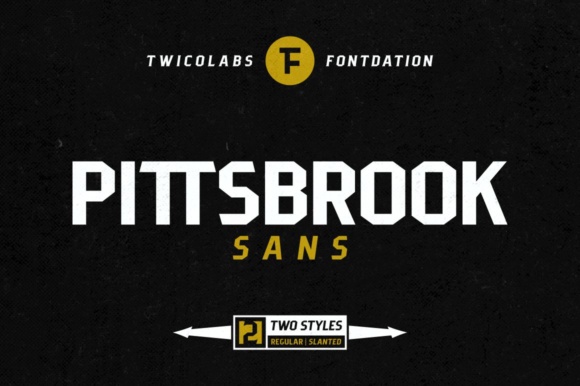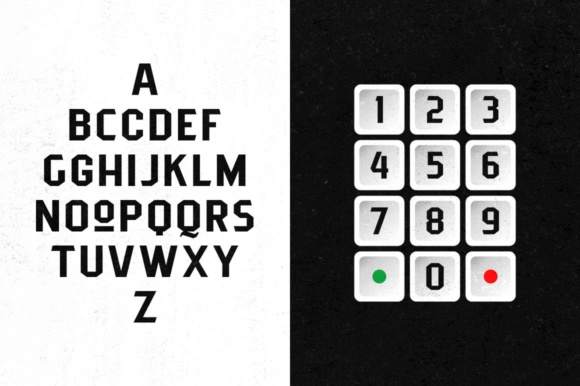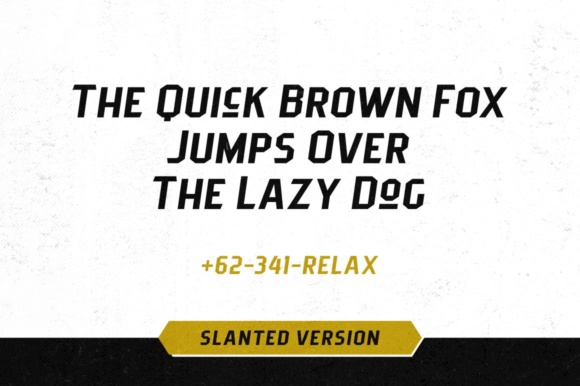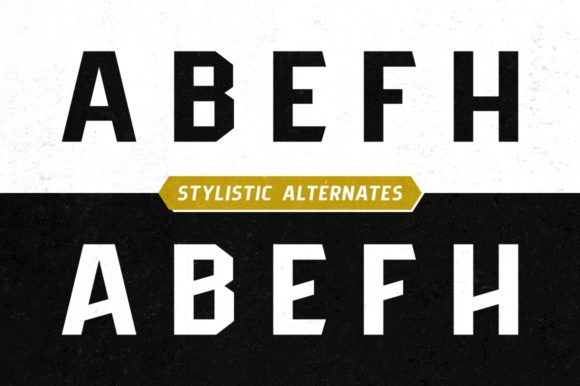
Pittsbrook Font
Welcome to the world of Pittsbrook Font, a typeface that will inspire your next great project. The Pittsbrook is a classic typeface which was inspired by the letters used in old advertisement and packaging’s. It’s packed with consistently mouse-crafted characters.
Its rigid shape gives you strong, sharp and blocky feelings, no curves were harmed in the making of this typeface.
Pittsbrook excels in headline applications, short impactful phrases, and branding elements where a strong, assertive presence is desired. Its bold, blocky forms work particularly well for logos, posters, and packaging designs requiring a vintage or retro aesthetic. Avoid using Pittsbrook for body text or long paragraphs; its rigid structure makes for difficult reading at smaller sizes.
The font’s core personality is bold and assertive, conveying a sense of vintage strength and reliability. It projects a confident, perhaps slightly nostalgic, image.
For effective pairings, consider pairing Pittsbrook with a clean sans-serif like Montserrat for a modern contrast, or a warmer serif typeface such as Playfair Display for a more classic and balanced feel. A simple geometric sans-serif could also add a contemporary edge. Avoid pairing it with overly decorative or script fonts, which would clash with its strong geometric structure.